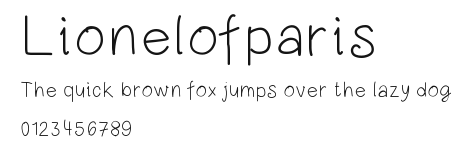
• Font Name: Lionelofparis
About Lionelofparis.ttf
Lionelofparis.ttf is a modern, elegant sans-serif font designed for ultimate readability and visual harmony. Perfect for branding, headlines, web design, and print materials.